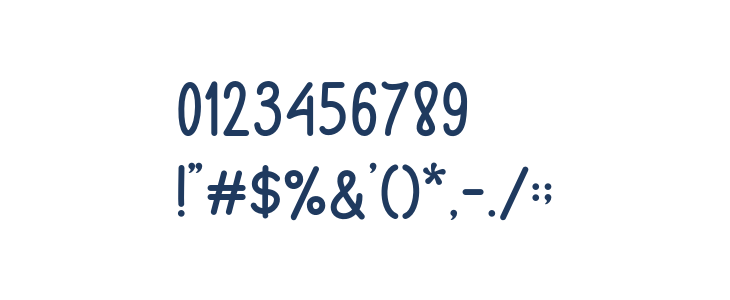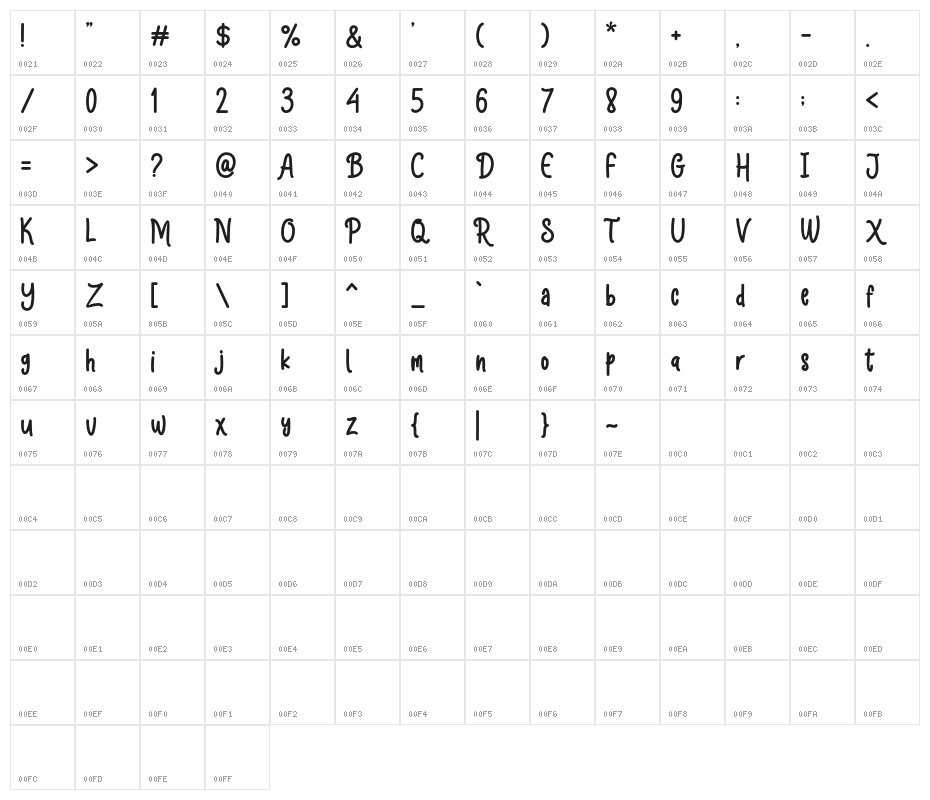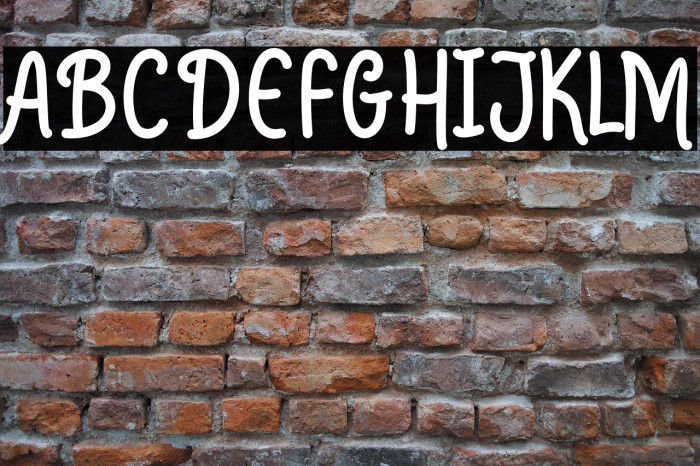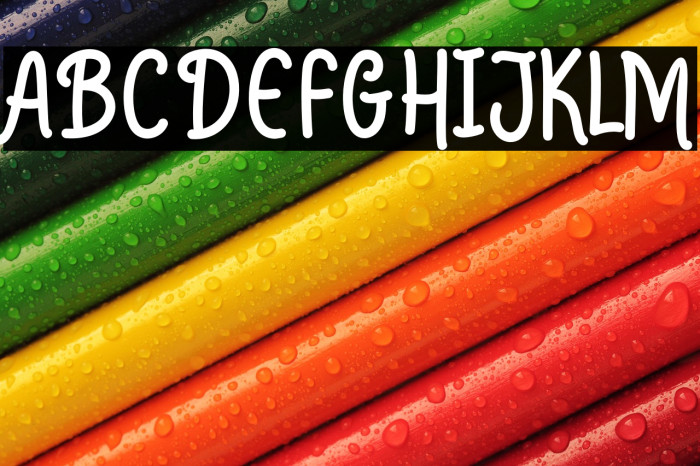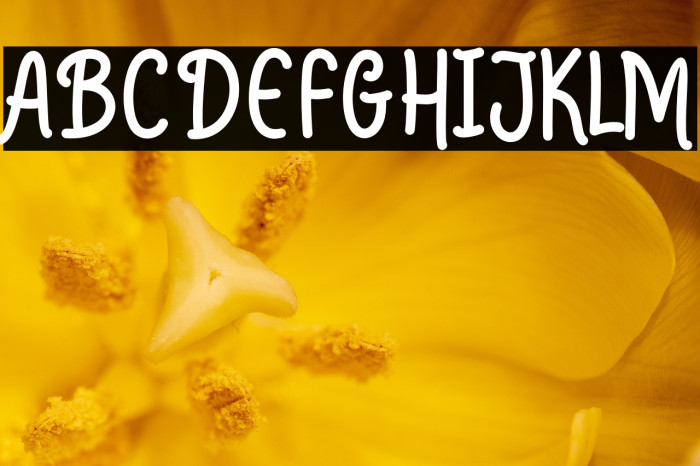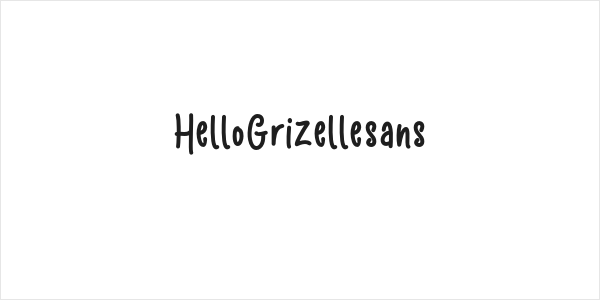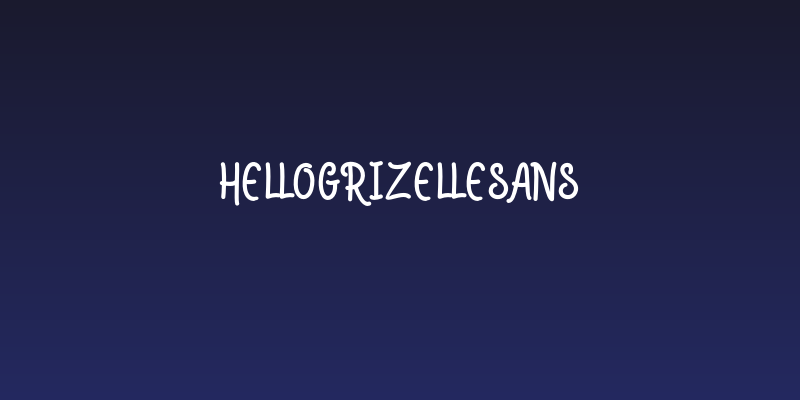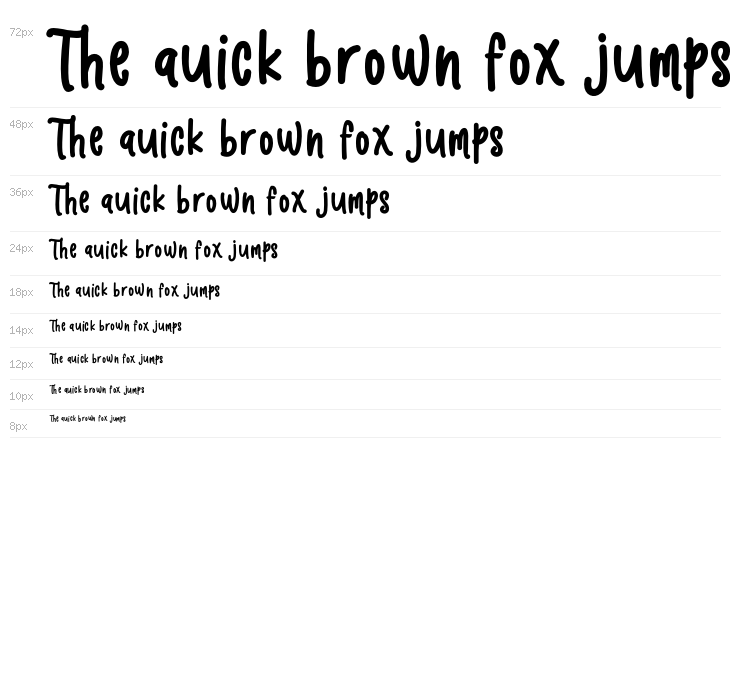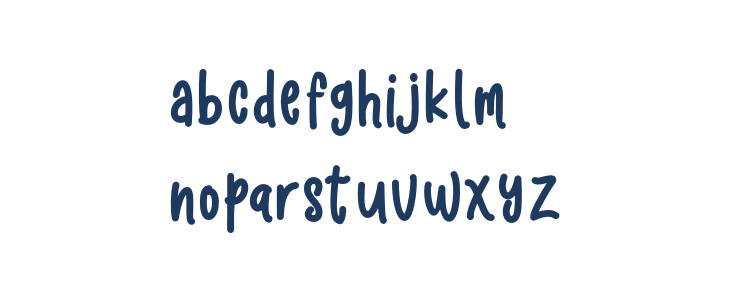
HelloGrizellesans Font
HelloGrizellesans Description
This playful and whimsical font features a handwritten style with a casual and friendly appearance. The letters are slightly irregular, giving it a natural and organic feel. The strokes are moderately thick, providing good readability while maintaining a lively character. The uppercase letters are bold and prominent, while the lowercase letters have a charming, slightly uneven baseline that adds to the font's informal appeal. The numerals are consistent with the overall style, maintaining the same playful and approachable look. Special characters are well-integrated, ensuring versatility in various design contexts.
| Overall Style | Playful |
| Use Case | Headlines, Logos, Social media graphics |
| Proposed Projects | Ideal for children's books, greeting cards, playful branding, and social media graphics. |